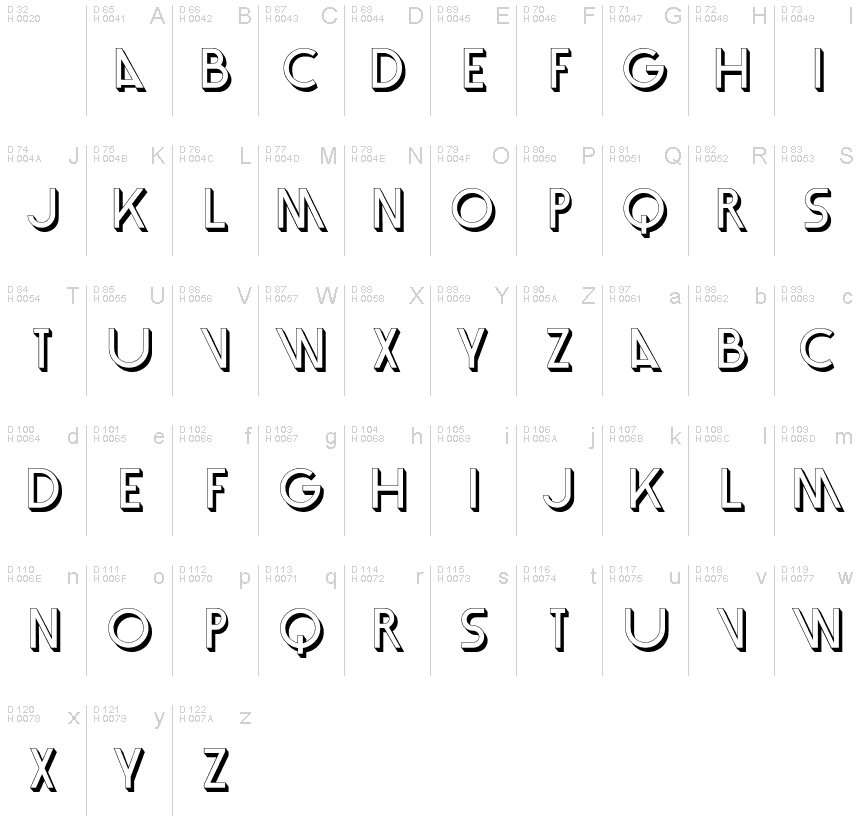
Vault Regular
Vault, a creation by font designer Vladimir Nikolic, is an exquisite embossed sans serif font that emanates elegance and sophistication. With its light weight, it exudes a sense of refinement and delicacy.
This versatile typeface is ideal for projects requiring a touch of class, such as luxurious branding campaigns or high-end fashion magazines. Its timeless appeal adds a subtle yet impactful element to any design. Whether you're crafting an exquisite logo or designing an elegant invitation, Vault's embossed sans serif style is sure to elevate your project to new levels of sophistication.